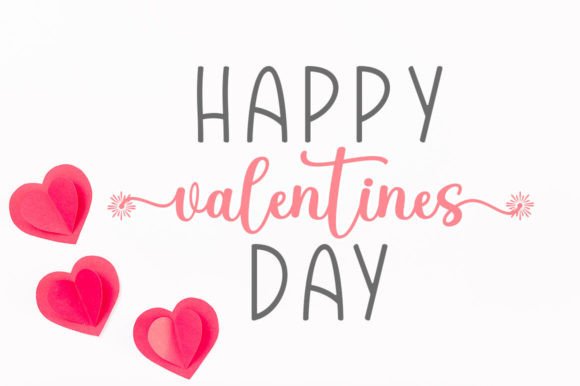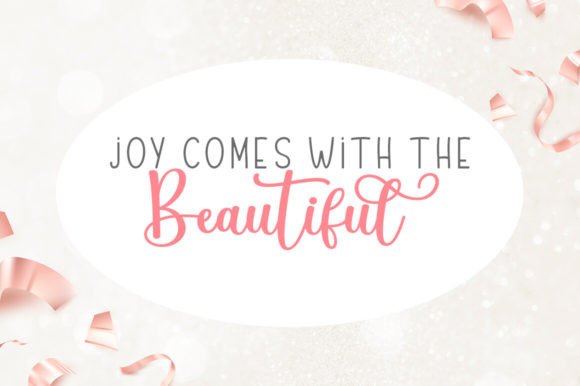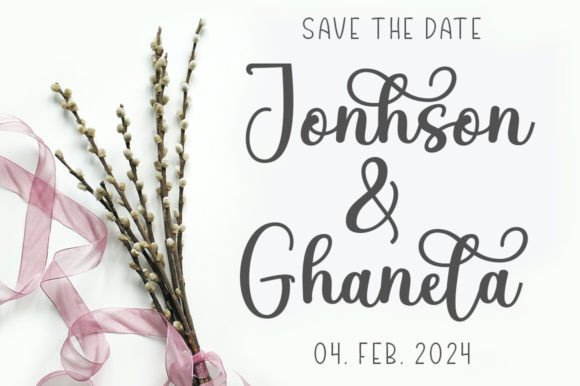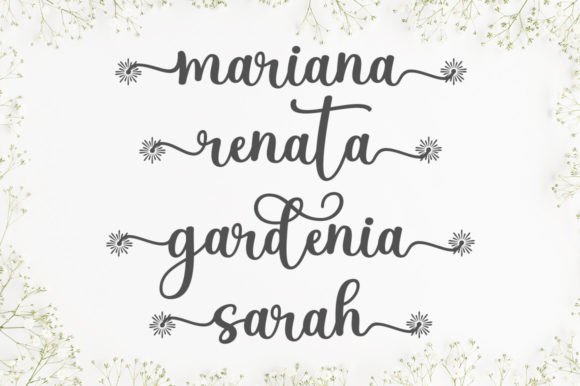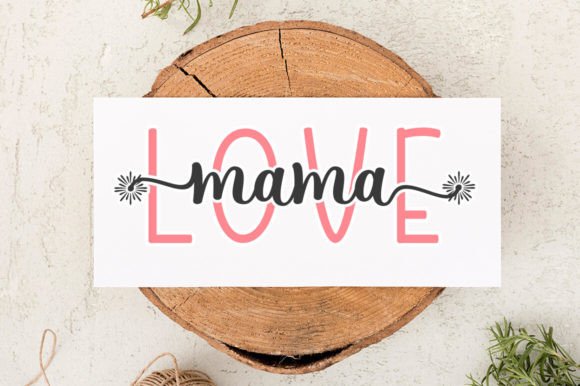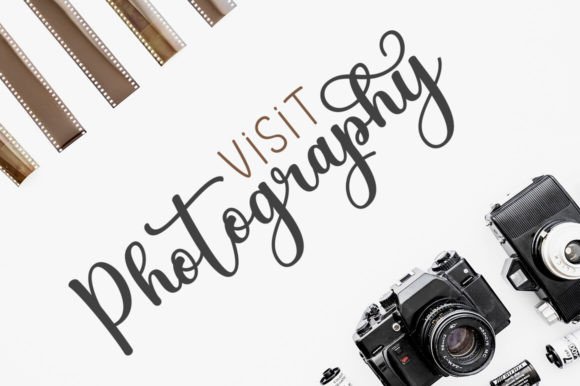
Introducing Happy New Year Duo Font: The Perfect Handmade Script Font for Your Creative Projects
As the clock strikes midnight on New Year’s Eve, we welcome a fresh start and a chance to create something new and exciting. For designers and crafters, the start of a new year brings endless possibilities and opportunities to express your creativity. To help you make the most of this fresh start, we’re thrilled to introduce the Happy New Year Duo Font – a stunning, handmade script font that’s perfect for a wide range of creative projects.
What is Happy New Year Duo Font?
Happy New Year Font Duo is a unique, freestyle typeface that we’ve carefully crafted to bring a touch of elegance and sophistication to your designs. This beautiful handmade script font is designed to be versatile and adaptable, making it perfect for various purposes such as logos, wedding invitations, headings, t-shirts, letterheads, signage, labels, news, posters, badges, and more.
Key Features of Happy New Year Duo Font
- Handmade with love: Each letter has been carefully crafted by hand to give it a unique, personal touch.
- Freestyle design: The font’s freestyle design makes it perfect for creating eye-catching, one-of-a-kind designs.
- Script font: The script font style adds a touch of elegance and sophistication to any design.
- Versatile: Use it for a wide range of creative projects, from logos and wedding invitations to posters and social media graphics.
Why Choose Happy New Year Duo Font?
With so many fonts available, why choose Happy New Year Duo Font? Here are just a few reasons why this amazing typeface stands out from the rest:
- Unique and distinctive: The handmade, freestyle design of Happy New Year Duo Font makes it truly unique and distinctive.
- High-quality: The font is crafted with attention to detail, ensuring that it looks great in any design.
- Time-saving: With Happy New Year Duo Font, you can create stunning designs in no time – perfect for meeting tight deadlines.
Happy New Year Duo Font is the perfect handmade script font for designers and crafters who want to add a touch of elegance and sophistication to their creative projects. With its unique, freestyle design and versatile nature, this font is sure to become a go-to choice for a wide range of design applications. So why wait? Download Happy New Year Duo Font today and start creating stunning designs that will make your clients and audience take notice.
Whether you’re a seasoned designer or just starting out, Happy New Year Duo Font is a great addition to your font library. So here’s to a happy and creative new year – may your designs be stunning and your clients be impressed!